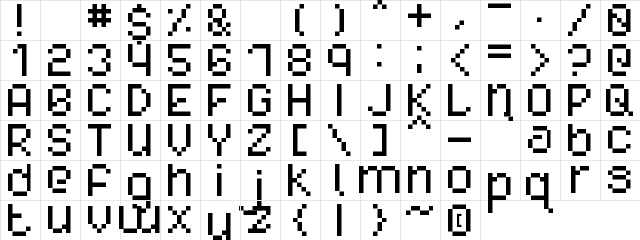
DeeCe Regular
| Designer | JeeCe |
DeeCe is a composed and adaptable typeface that performs quietly and consistently across a wide range of design contexts.